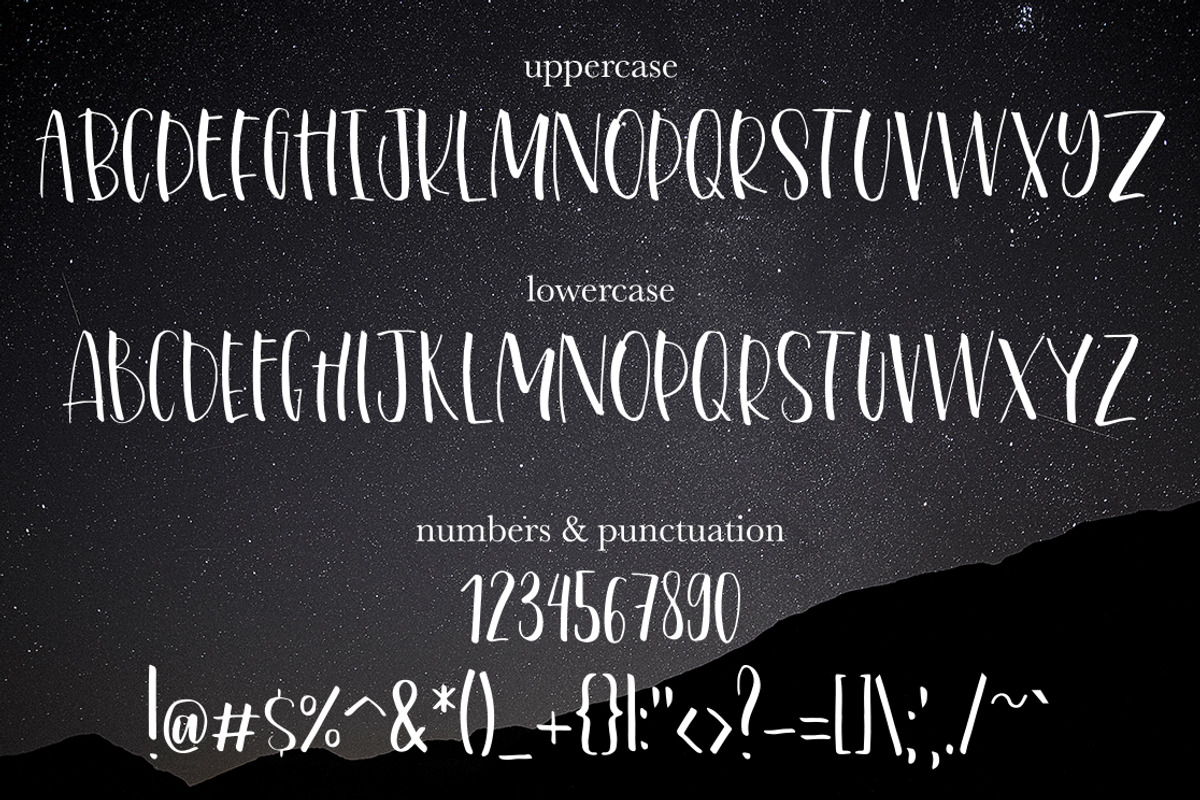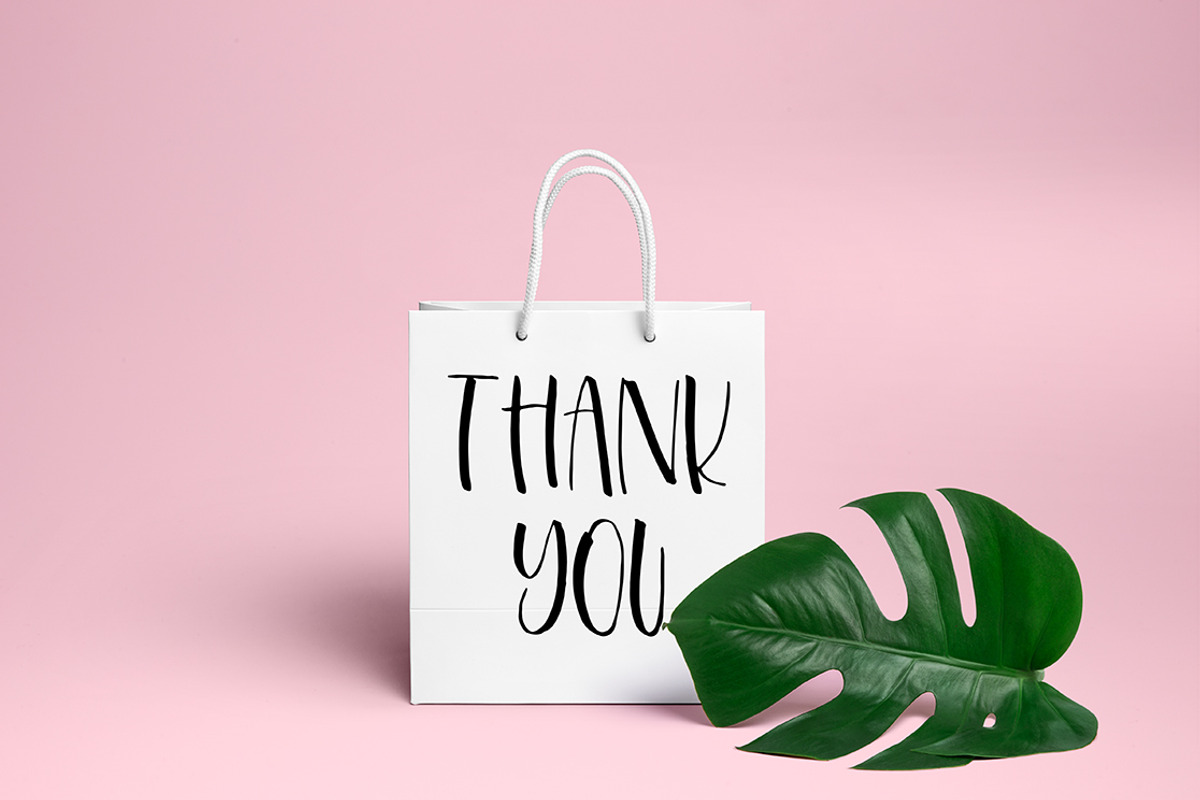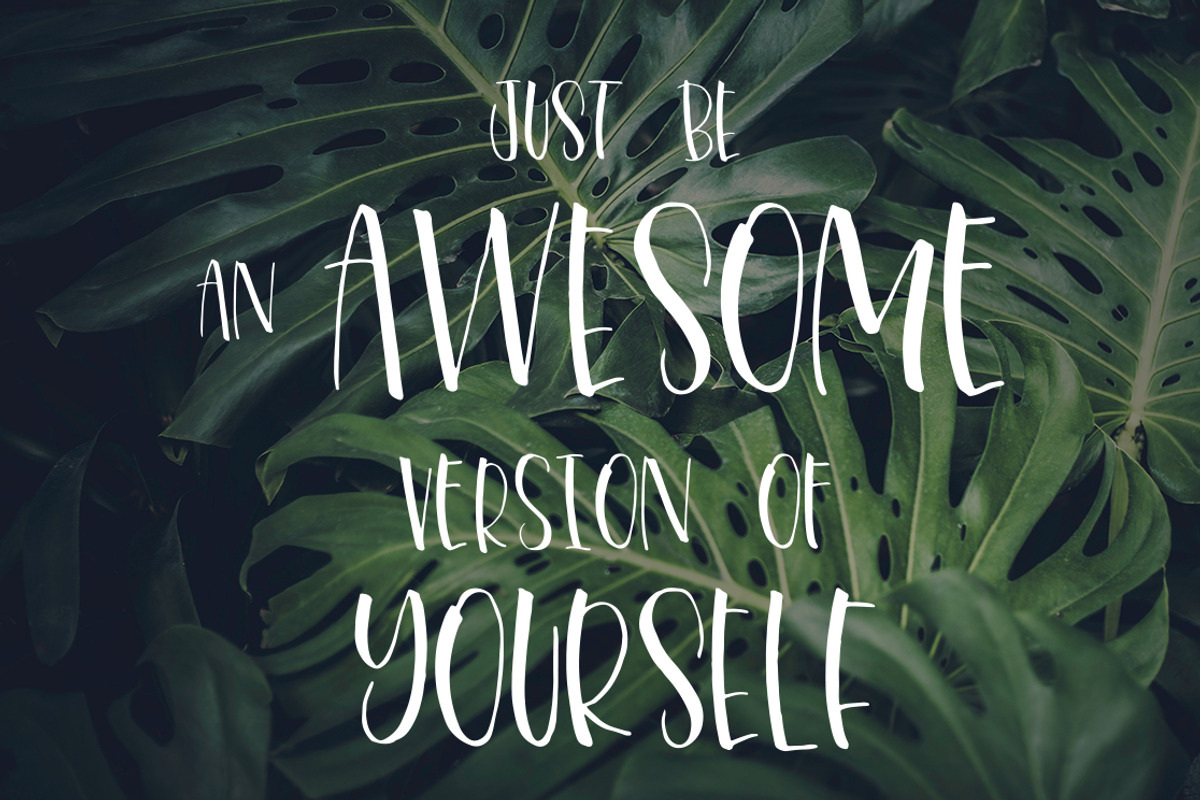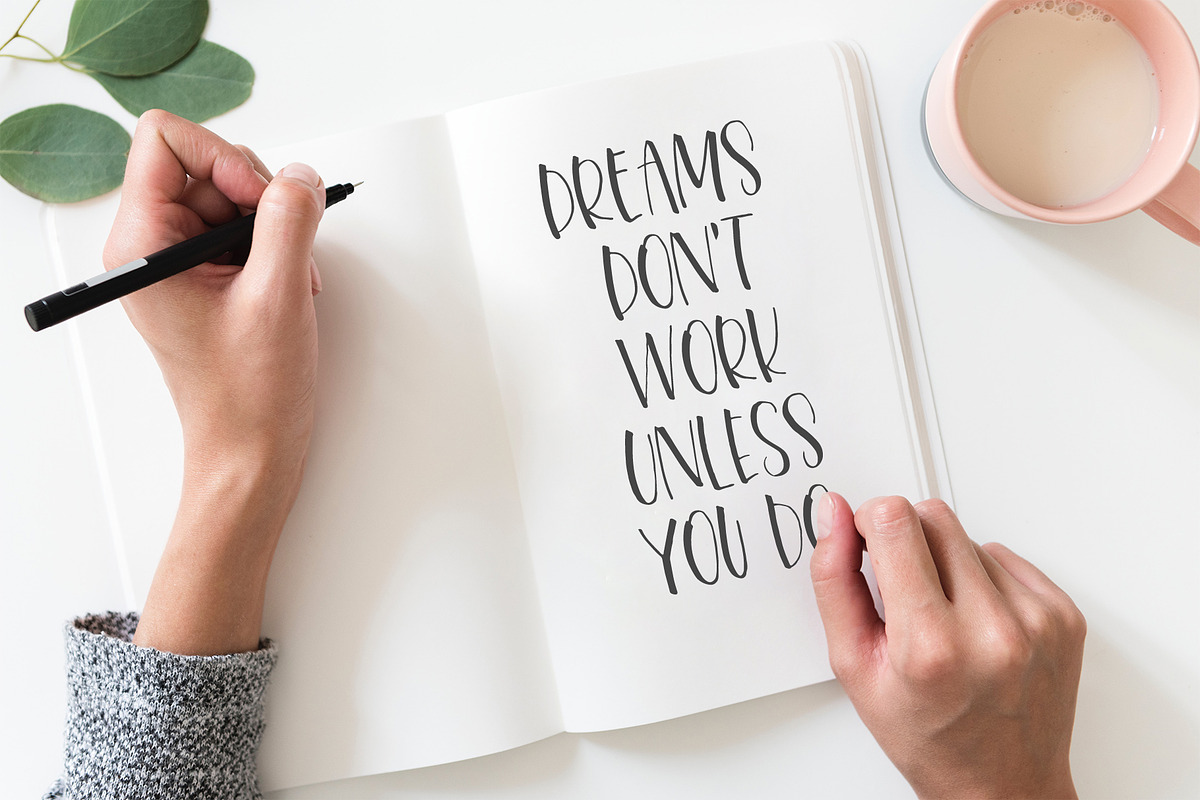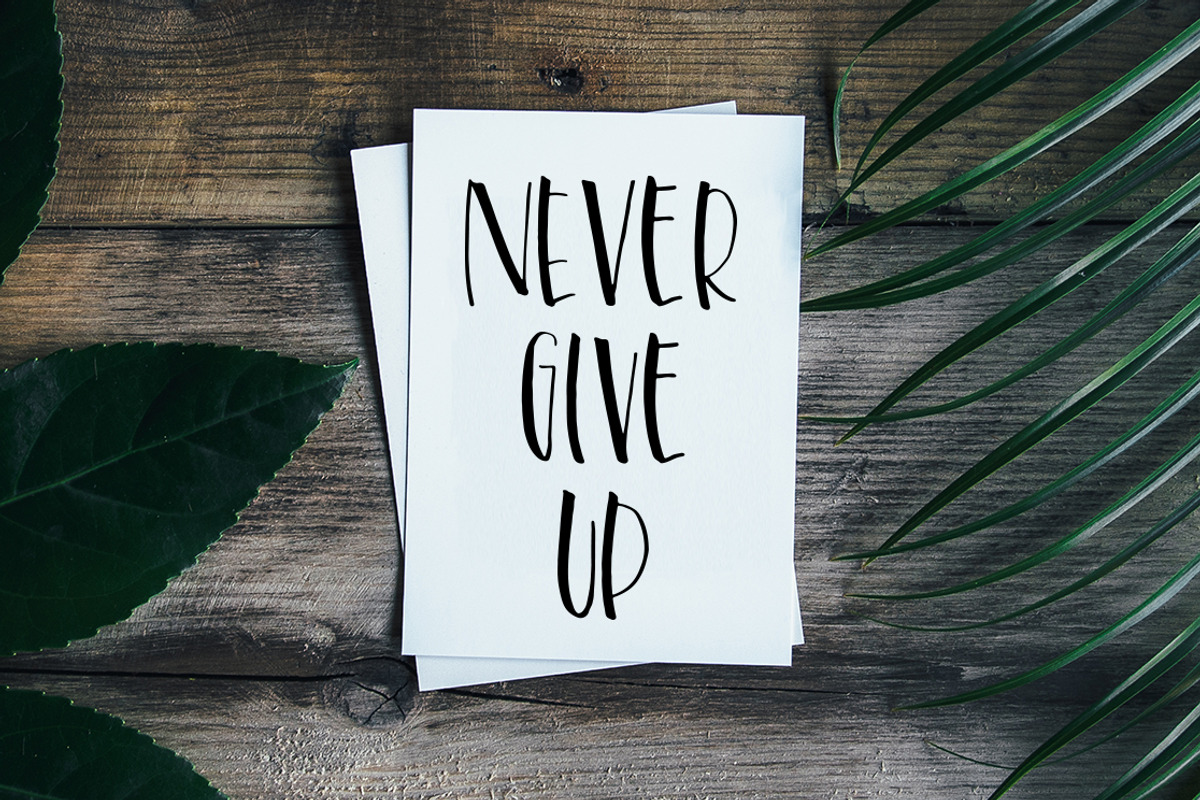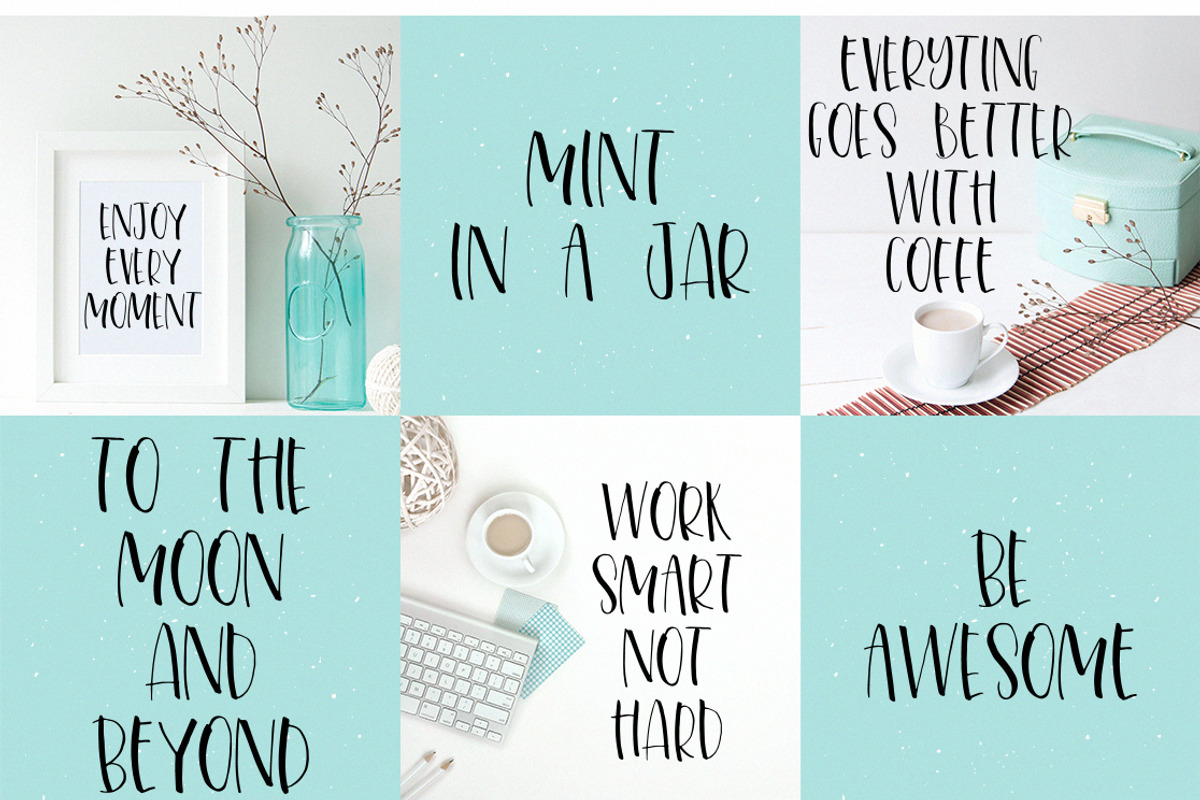
Love Stella Lettering Font
Love Stella Lettering Font by Renata Chizhikova is a font selected for branding, posters, packaging, typography.
- This is an all-caps font with alternatives that are easily available through upper and lowercase.
Why Love Stella Lettering Font is worth a look
Love Stella Lettering Font by Renata Chizhikova fits naturally into Branding, posters, packaging, typography.